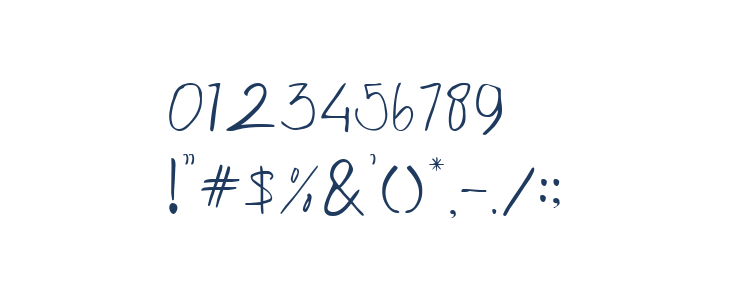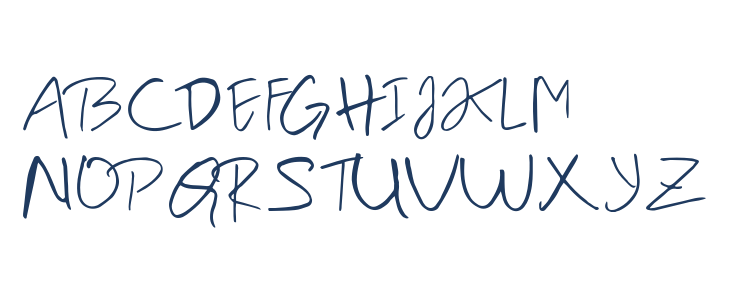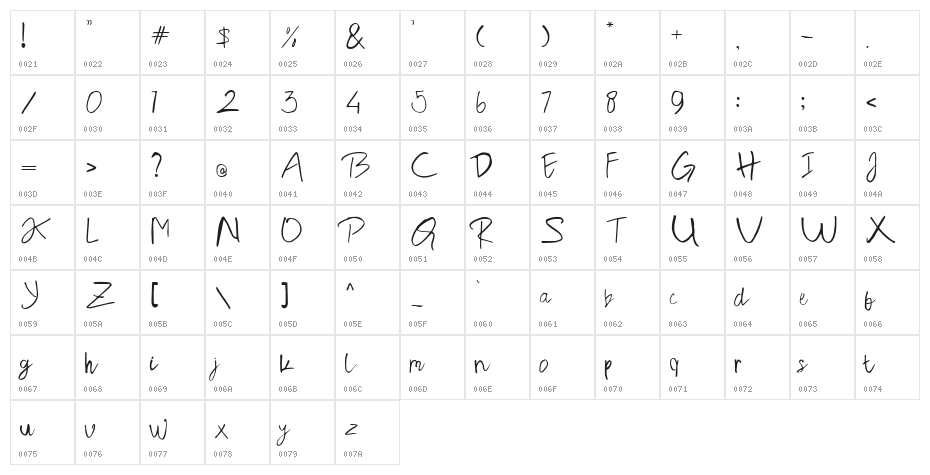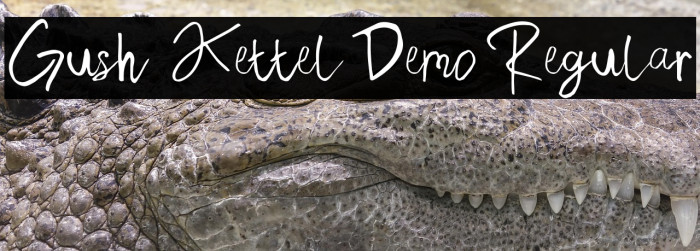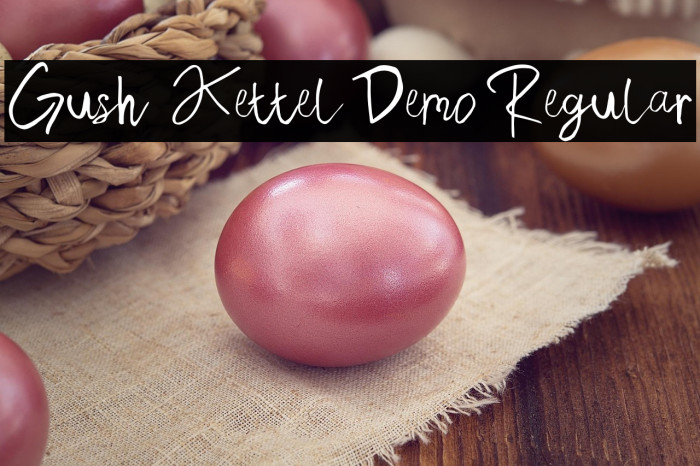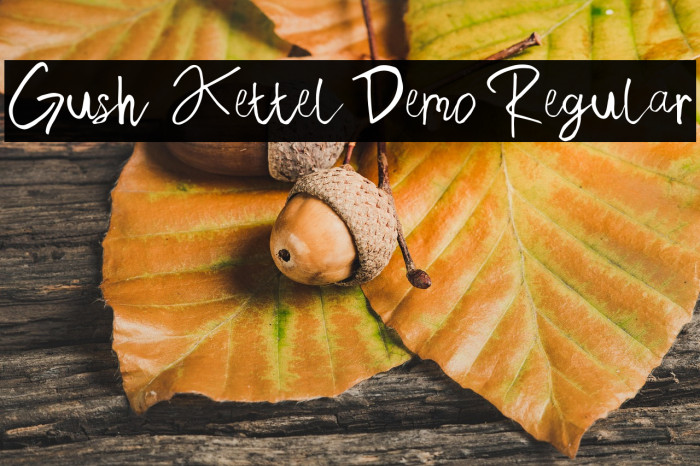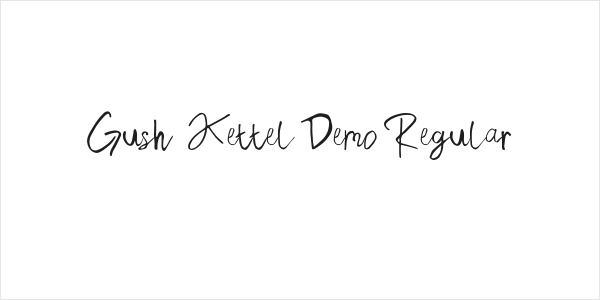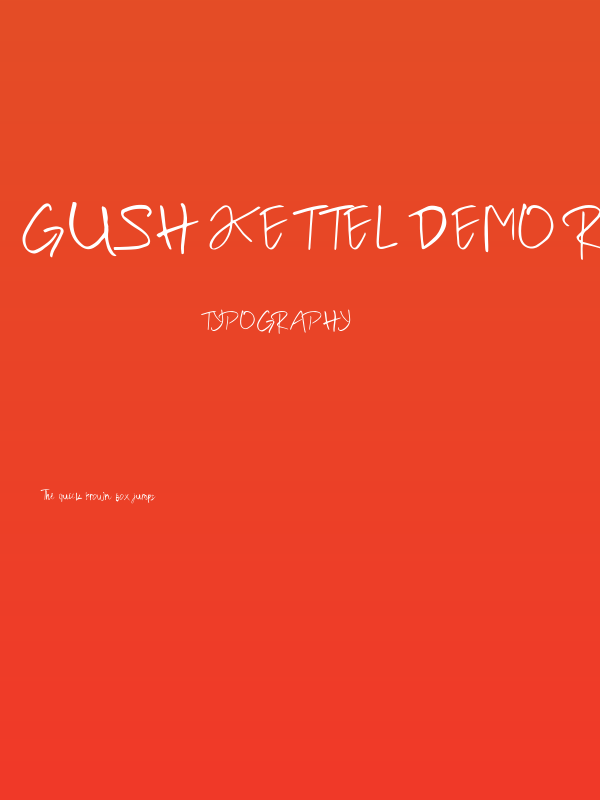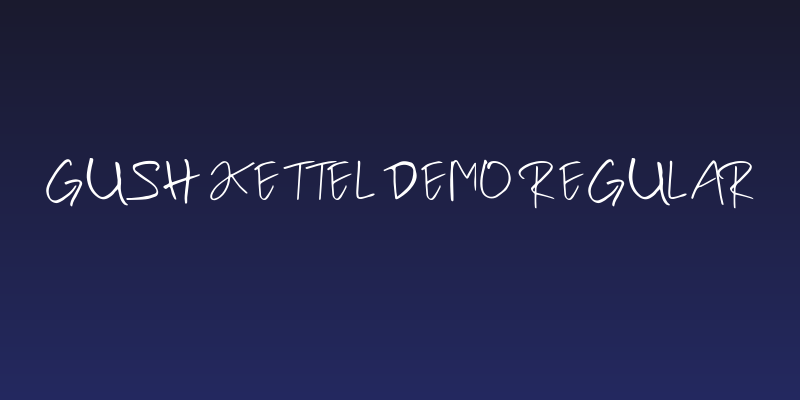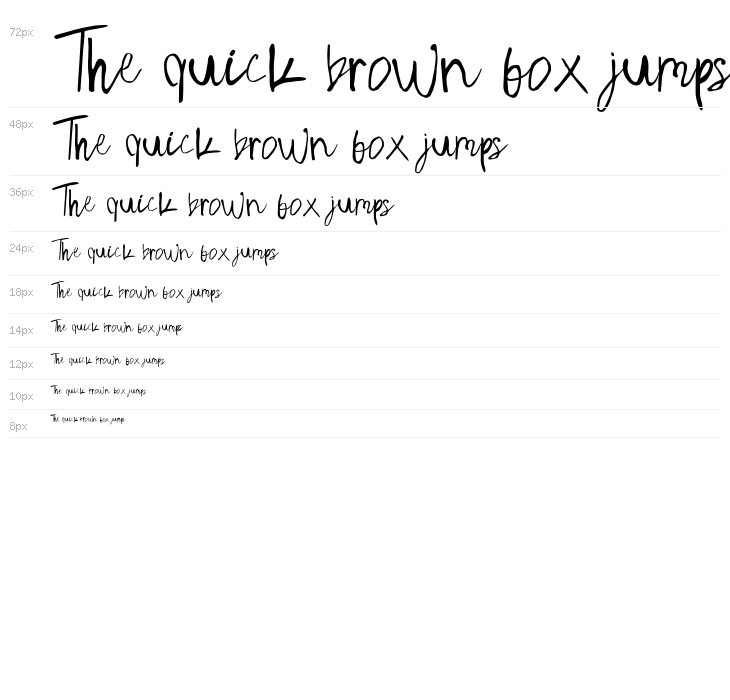
Gush Kettel Demo Regular Font
Gush Kettel Demo Regular Description
A playful, handwritten script with irregular strokes and a casual, organic flow. The characters are slightly slanted, with varying heights and dynamic curves, giving a lively and informal appearance.
| Overall Style | Decorative, Casual, Playful |
| Use Case | Logos, Headlines, Short quotes, Invitations |
| Proposed Projects | Greeting cards, invitations, personal branding, social media graphics, informal posters. |